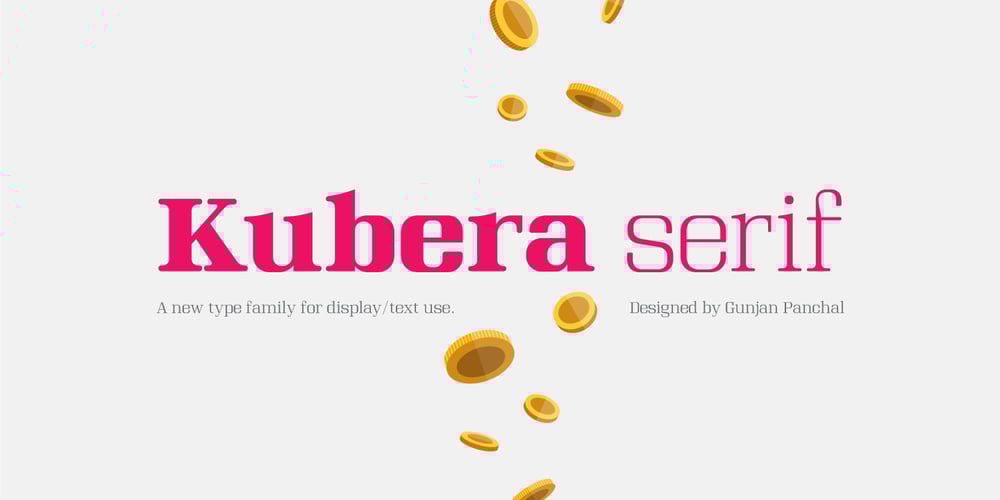
Kubera Serif Font Family was designed by Gunjan Panchal and published by Gunjan. Kubera Serif contains 6 styles and family package options. Kubera was designed to be a display and text face. It has six weights with same height. Kubera Serif is modernized letterform. It has square serif, high contrast stress, with large x height. Serifs are given soft corners, rather than pointy ones. Kubera Serif font family is designed by Gunjan Panchal based in India.